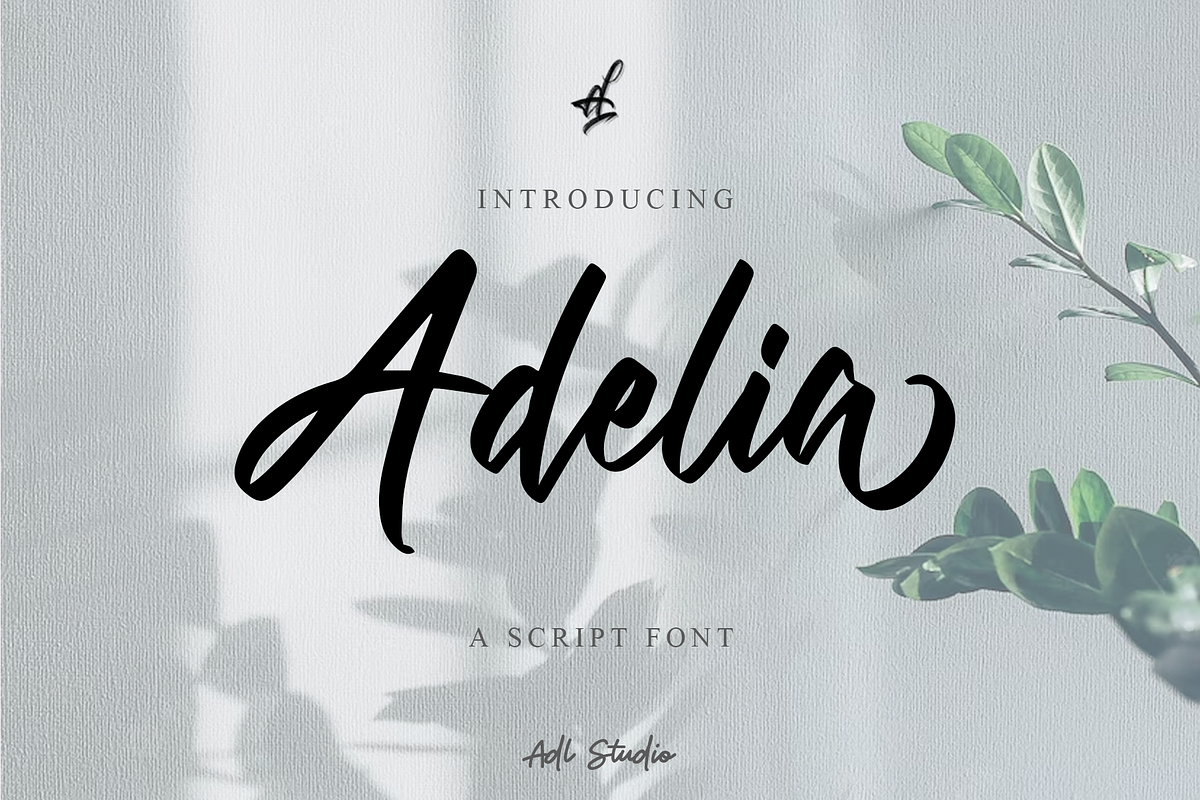
The Adelia Font Free Download is a graceful and romantic script typeface that blends calligraphic elegance with a modern touch. Perfect for wedding invitations, branding, personal logos, social media posts, and feminine packaging, Adelia brings a handwritten charm that feels both timeless and stylish.
With flowing lines and delicate swashes, this font adds a soft and sophisticated vibe to any design. It includes uppercase and lowercase letters, beautiful ligatures, stylistic alternates, punctuation, and multilingual support—giving you everything you need to create polished and expressive layouts.